Crafting an Aesthetic Discord Profile: Text & Emojis
A Guide to Aesthetic Text & Emojis
Your Discord profile is often the first thing people see. Want to make a killer first impression and create a truly aesthetic profile discord users will remember? It's all about smart use of discord text formatting and well-chosen emojis. How can I find cool emojis for my Discord profile? This guide will walk you through transforming your profile from basic to breathtaking, leveraging custom discord text and more. Start designing your aesthetic profile today!
Why Your Discord Profile is Your Digital First Impression
In the bustling world of online communities, your Discord profile serves as your digital handshake and business card all in one.
- The Power of a First Glance in Online Communities: Before you even type a message, your profile gives others a snapshot of who you are. An aesthetic profile discord setup can make you more approachable and memorable.
- Expressing Individuality Through Your Profile: Your Discord profile is a canvas for personalization. Using unique text styles and emojis allows you to showcase your personality and stand out from the crowd.
Understanding the Elements of an Aesthetic Discord Profile
Creating an aesthetic profile discord users will admire involves several key components working together harmoniously.
- Key Components: Username, Avatar, About Me (Bio), Status: Each of these elements—your username styling, avatar choice, the content and discord text formatting of your discord bio, and even your custom status—contributes to your overall online identity.
- Consistency Across Profile Elements: Aim for a consistent theme or vibe. If your avatar is playful, your bio's text styles and emojis should reflect that.
Level Up Your Username with Custom Discord Text & Emojis
Your username is prime real estate for profile customization. How can you make it more aesthetic?
- Using Special Characters and Symbols Creatively: Beyond standard letters, consider incorporating subtle symbols or Discord fonts (Unicode characters that look like different fonts) to make your username unique.
- Finding Unique Discord Fonts for Your Name: A Discord font tool can provide a plethora of text styles that you can copy and paste into your username field for an instant upgrade.
- Strategic Placement of Emojis in Usernames: A well-placed emoji can add personality, but be mindful of character limits and overall readability. Are there character limits for Discord usernames and bios? Yes, so choose wisely!
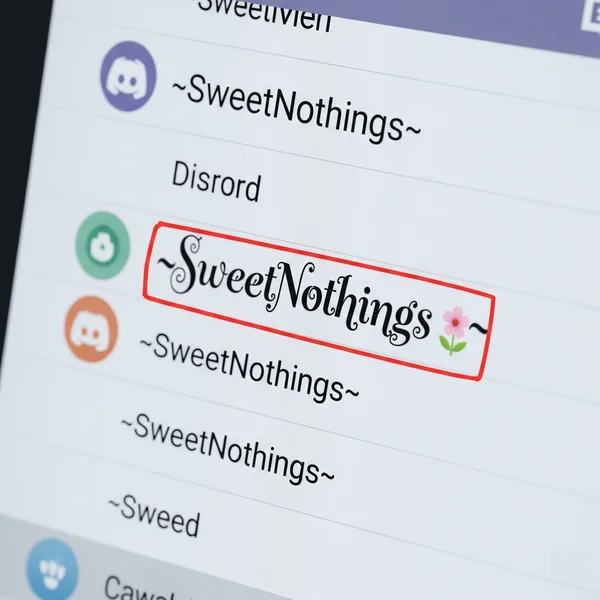
Crafting a Captivating Discord Bio Using Text Formatting
Your discord bio (the "About Me" section) is where you can truly shine with discord text formatting and emojis.
- Structuring Your "About Me" for Impact and Readability: Don't just dump a wall of text. Use short paragraphs, bullet points, or other structural elements. Good readability is key to an aesthetic profile discord members will actually read.
- Incorporating Bold, Italics, and Lists: Use
**bold**for key skills or interests,*italics*for quotes or emphasis, and bullet points (*or-) to list hobbies or projects. - Using Text Styles to Highlight Interests or Skills: Employ custom discord text from a text style generator for section headers or to make specific words pop within your discord bio.
- Adding Relevant Emojis to Break Up Text and Add Flair: Thoughtfully chosen emojis can add visual appeal, break up long sentences, and convey emotion more effectively than text alone.
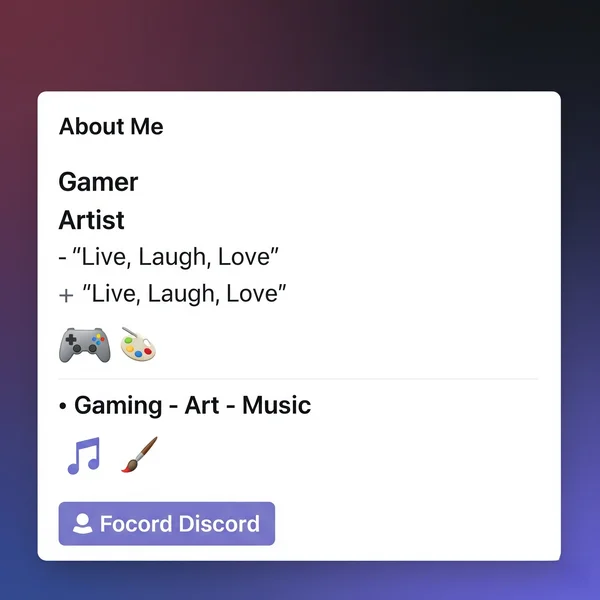
Choosing the Right Emojis to Reflect Your Personality
Emojis are a powerful tool for adding personality and creating an aesthetic profile discord users will connect with.
- Matching Emojis to Your Vibe and Server Themes: If you're in a gaming server, 🎮 or 👾 might be appropriate. For an art community, try 🎨 or ✨. Let your emojis complement your online identity.
- Using Emojis Sparingly for Maximum Effect: Too many emojis can look cluttered. Use them as accents to enhance your message, not overwhelm it.
- Understanding Emoji Meanings and Connotations: Be aware that some emojis can have different interpretations. Stick to those that clearly convey your intended meaning.
Finding Unique Discord Fonts with a Text Generator
Want those cool, unique Discord fonts you see others using in their discord profile or discord bio? A text generator is your best friend.
- Accessing a Wide Variety of Styles Instantly: Tools like our Discord font resource offer hundreds of text styles, from cursive to gothic, that you can apply to your text instantly.
- How a Text Generator Simplifies Using Custom Discord Text: Instead of hunting for individual Unicode characters, a text generator does the heavy lifting. You type, you choose, you copy. It makes profile customization with Discord fonts incredibly easy.
- Copy-Pasting Fonts into Your Profile Sections: Once you've generated your desired custom discord text, simply copy it and paste it into your username, "About Me," or status fields in Discord.
Will my custom formatted profile look the same to everyone? Most Discord fonts and text styles created using Unicode characters will display consistently across different devices and operating systems. However, very new or obscure Unicode characters might not be supported by older systems, potentially defaulting to a standard character. It's generally reliable for creating an aesthetic profile discord viewers will see as intended.